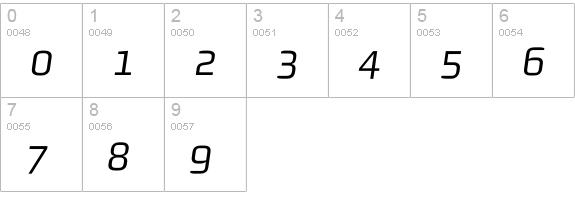
MorganSnExpert Oblique Font Details
MorganSnExpert Oblique is a distinctive, italic variant in the MorganSnExpert typeface family \xE2\x80\x94 well suited to design and typography projects.
MorganSnExpert Oblique font is a sleek and modern typeface that exudes sophistication and elegance. Its unique slanted design adds a touch of dynamism to any project, making it perfect for branding, editorial design, and more. With its clean lines and sharp angles, this font is sure to make a statement. The best part? MorganSnExpert Oblique font is available for free download at FontsMarket.com. Now you can enhance your designs with this striking typeface without breaking the bank. Don't miss out on the opportunity to add a touch of class to your projects with MorganSnExpert Oblique font. Download it now and elevate your designs to the next level.